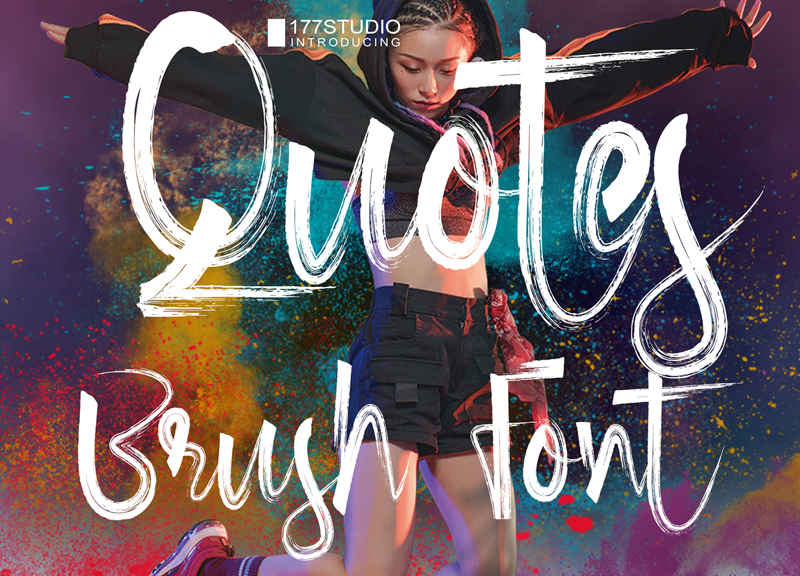
Font name: | Quotes Brush |
Introducing Quotes Brush Font. A texture brush font. This is a unique hand made brush font created using realistic brush strokes including inconsistent textures & letter-forms to give you the same look & feel as a real brush would! You can buy full license from our store for more our fonts: https://gumroad.com/177studio if you have any problem, let we know by email: admin@177studio.com |